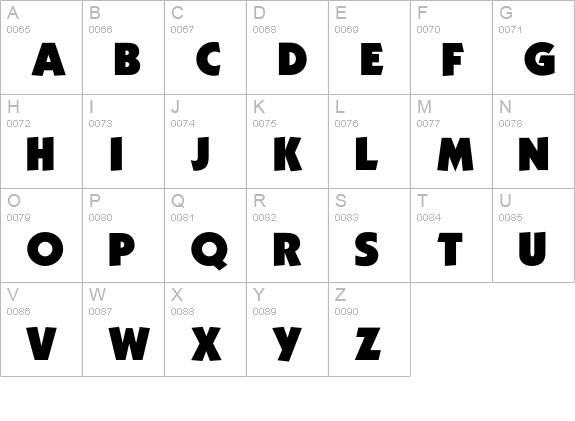
KabelUltra Font Details
KabelUltra font is a stunning display font that exudes modernity and sophistication. Its sleek and elegant design is perfect for adding a touch of professionalism to any project. With its bold and striking letterforms, KabelUltra commands attention and leaves a lasting impression. This versatile font is ideal for a wide range of designs, including logos, headlines, posters, and branding materials. Its clean lines and distinct geometric shapes make it highly legible and visually appealing, ensuring that your messages are conveyed with clarity and style. One of the best things about KabelUltra font is that it is free. Yes, you read that right! This incredible font is freely available to download at FontsMarket.com. Whether you're a professional designer or someone looking to add a unique touch to personal projects, KabelUltra font offers a high-quality solution without breaking the bank. So, why wait? Take advantage of this fantastic opportunity to enhance your designs with the amazing KabelUltra font. Download it for free today at FontsMarket.com and unlock a world of creative possibilities.